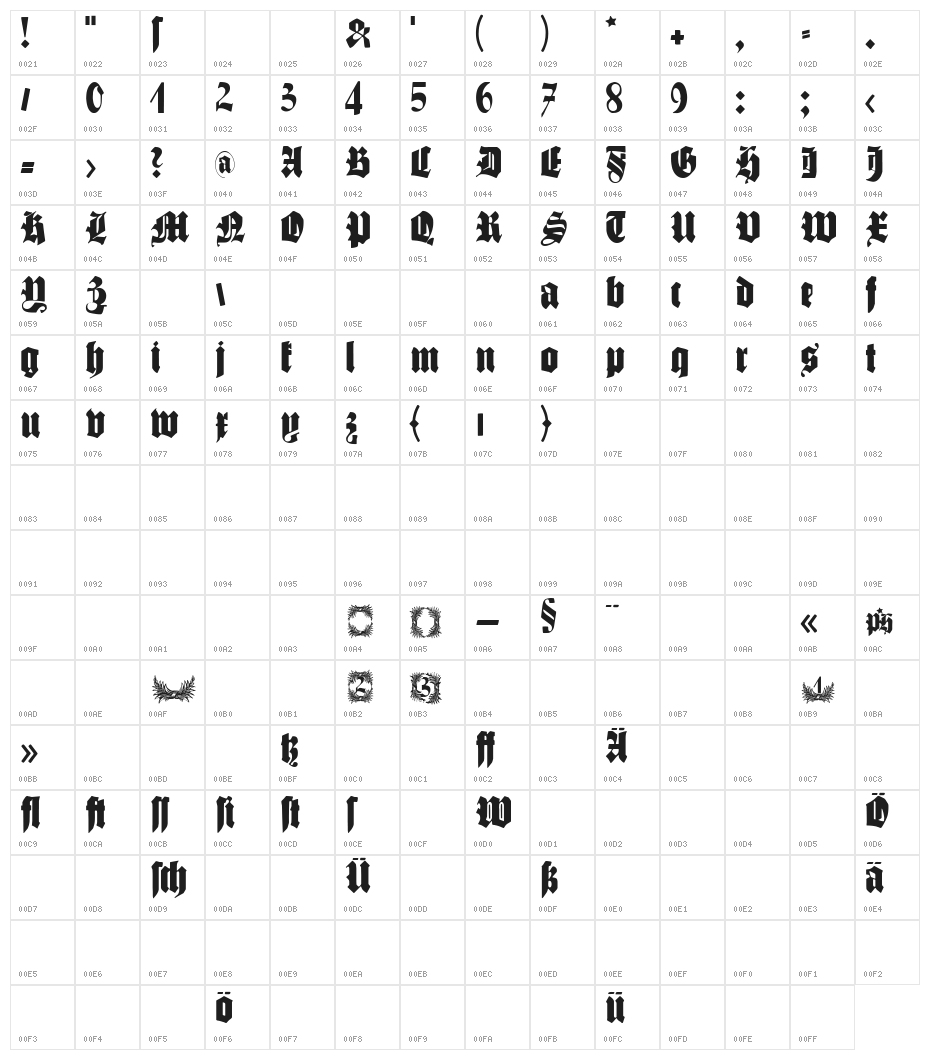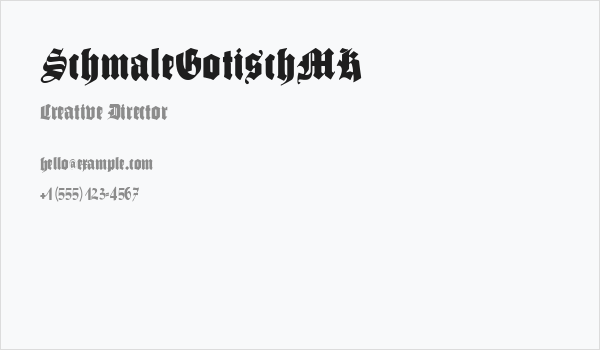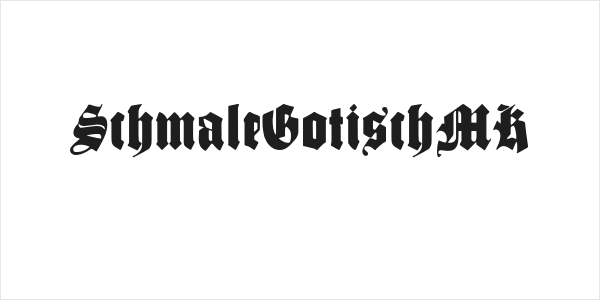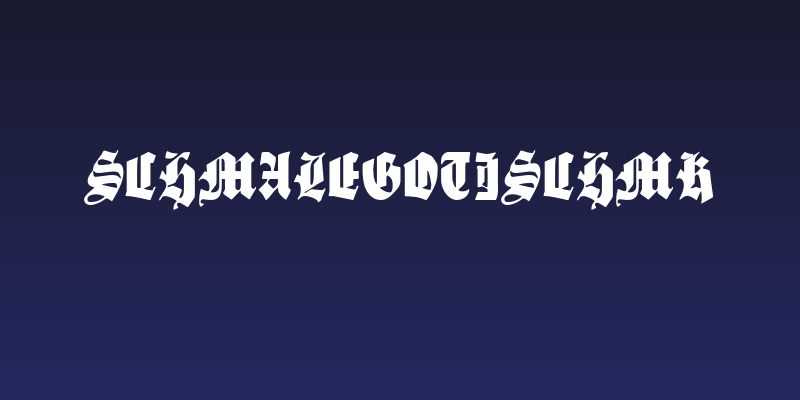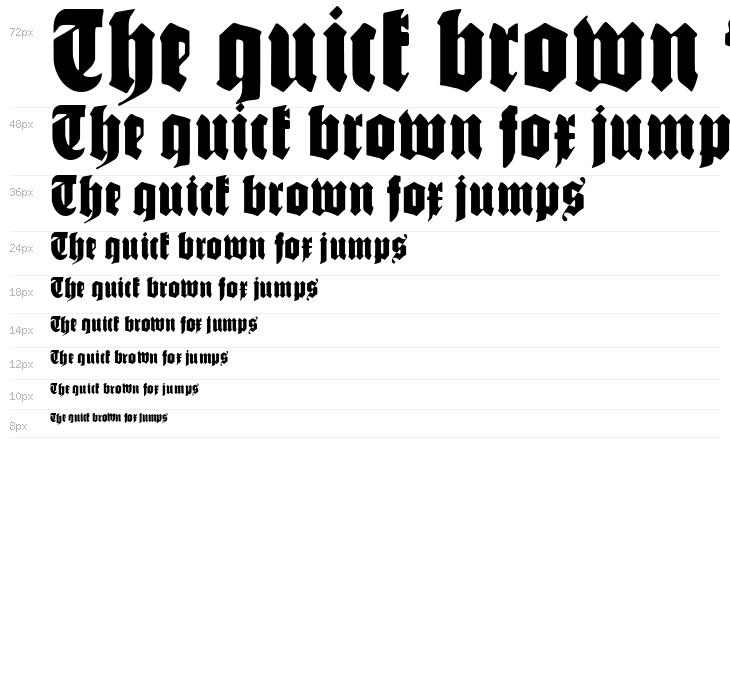
SchmaleGotischMK Font
SchmaleGotischMK Description
This font exhibits a traditional blackletter style, characterized by its intricate and ornate letterforms. The uppercase letters are bold and angular, with sharp edges and elaborate serifs, creating a dramatic and historical appearance. The lowercase letters maintain the same level of detail, with distinctive curves and flourishes that enhance the font's gothic aesthetic. The numerals are consistent with the overall style, featuring bold strokes and unique shapes. Special characters are equally ornate, adding to the font's decorative appeal. This typeface is reminiscent of medieval script, often associated with historical documents and traditional European design.
| Proposed Projects | Ideal for projects requiring a historical or medieval theme, such as book covers, posters, or branding for vintage products. |